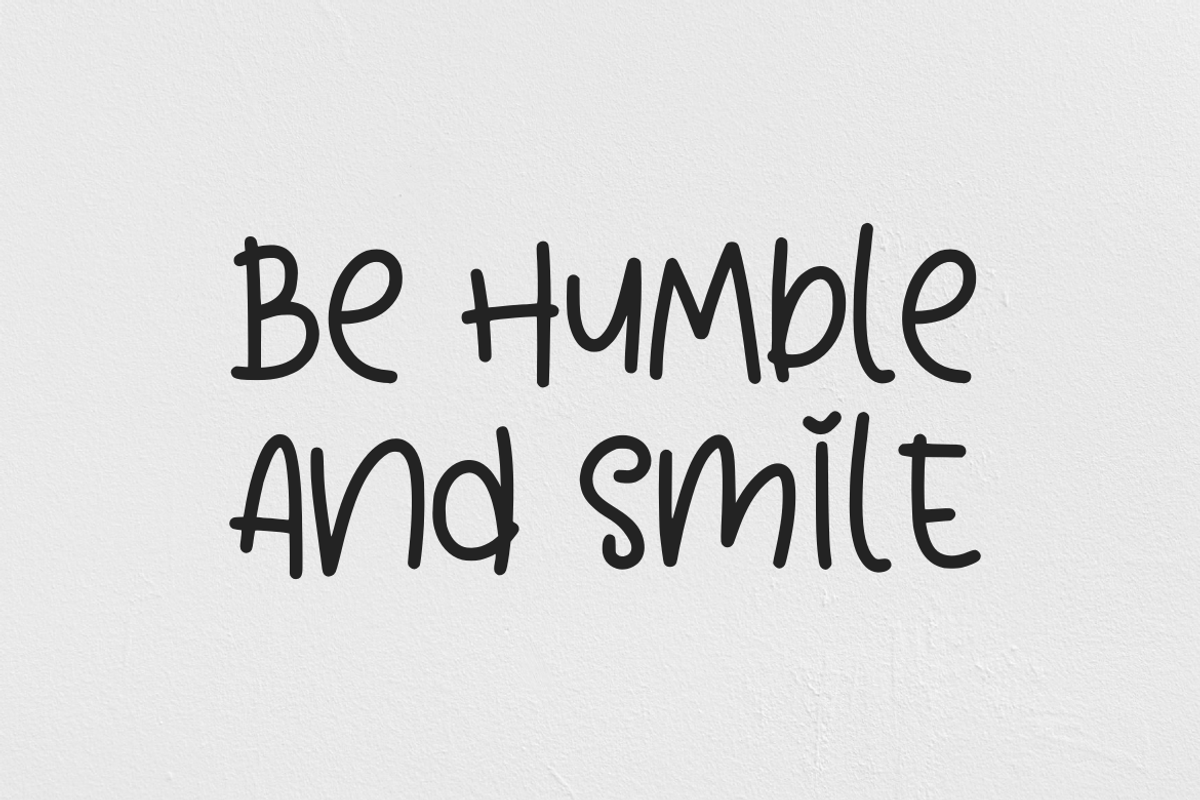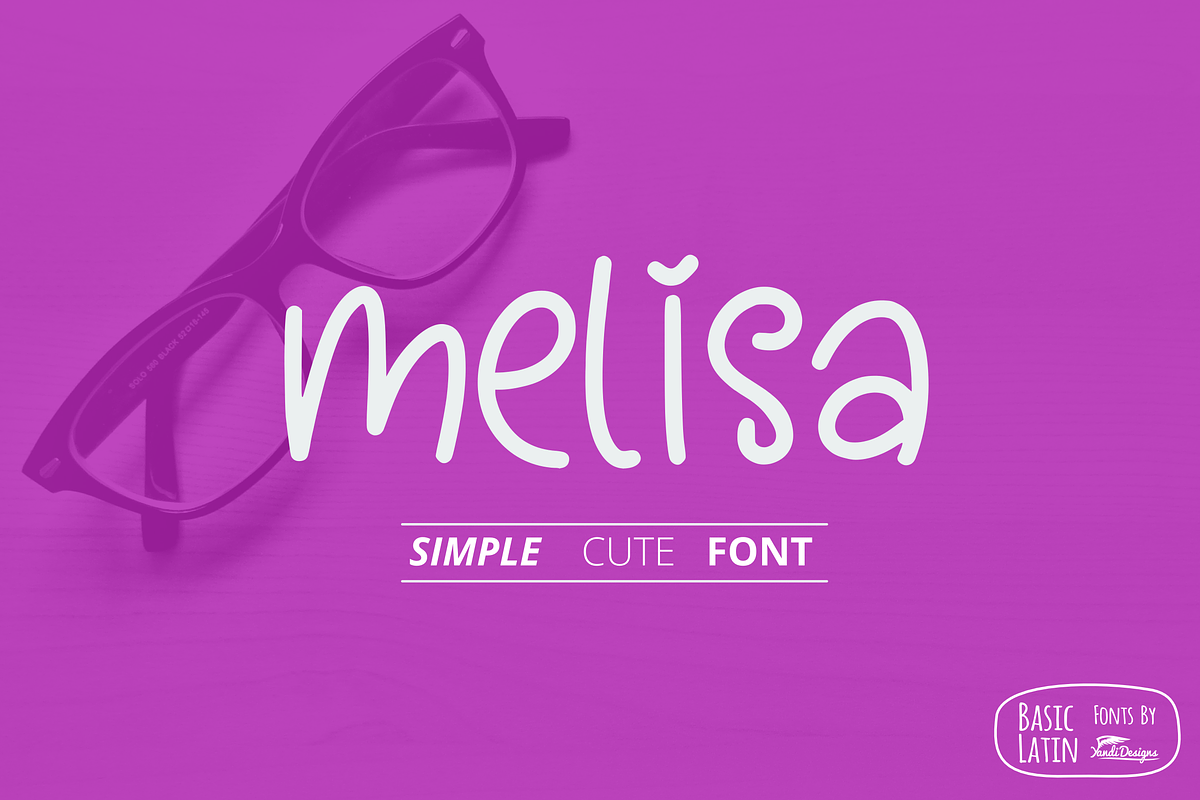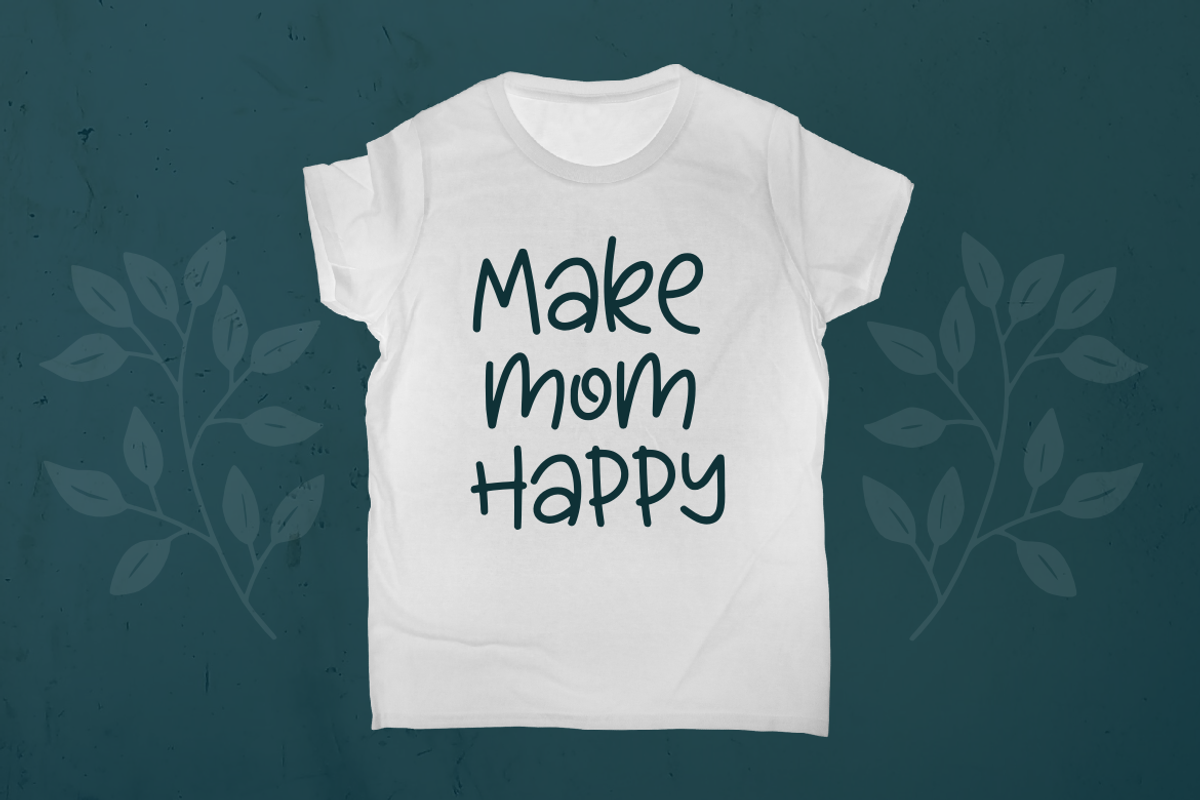
Melisa Fun Font
Simple fun font , suitable for many project , quotes, logo , doodle, heading , title etc.
Melisa Fun Font by YandiDesigns fits naturally into Branding, posters, packaging, typography.